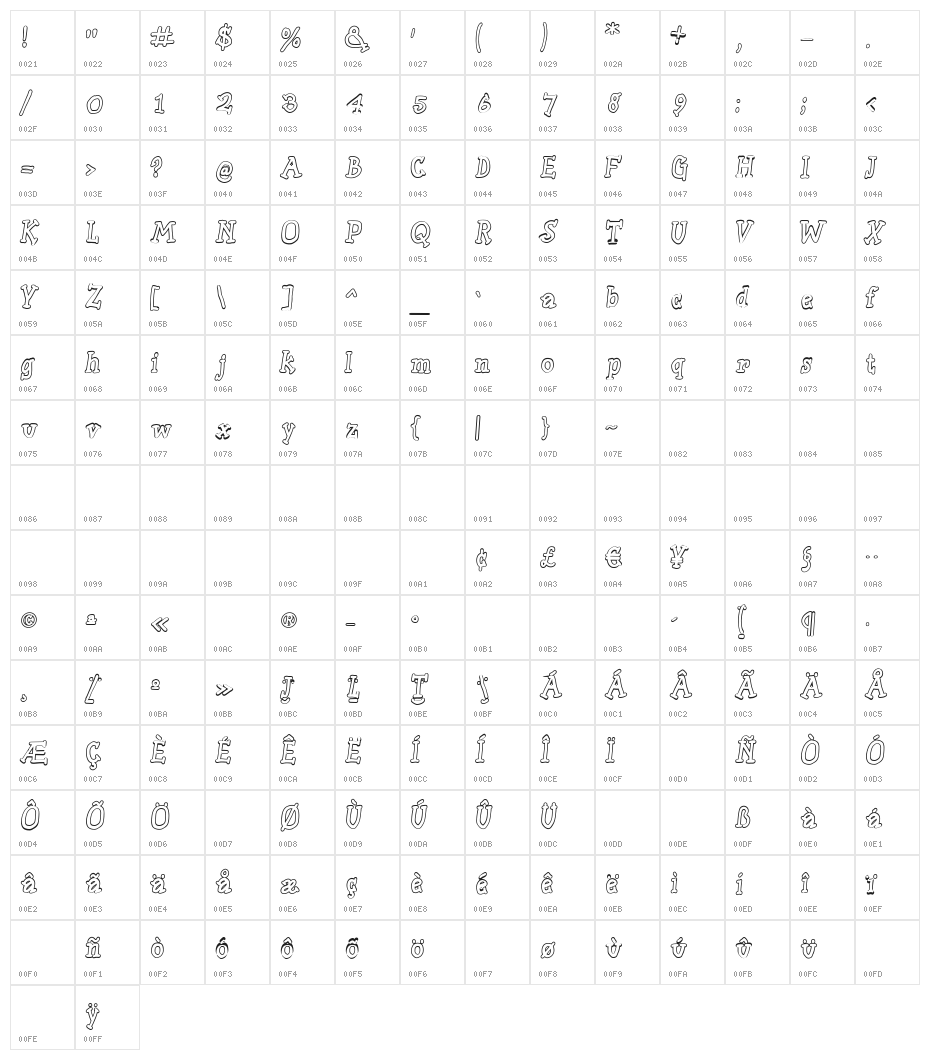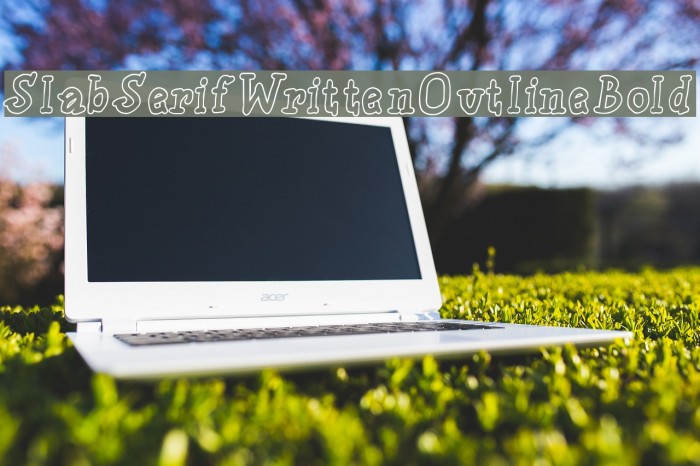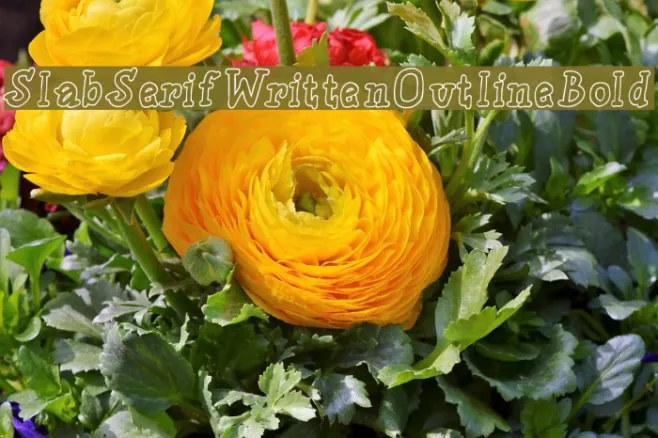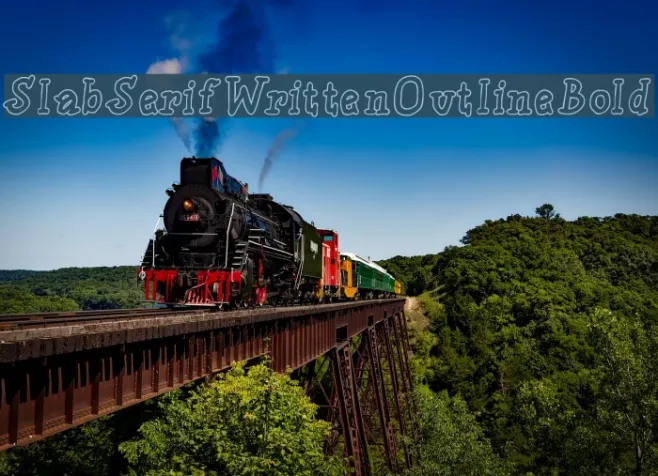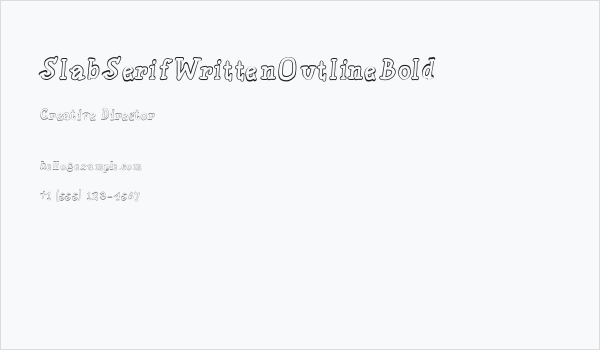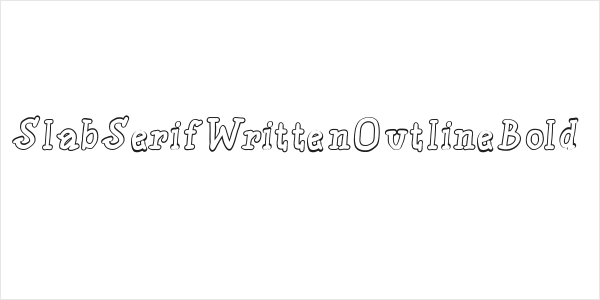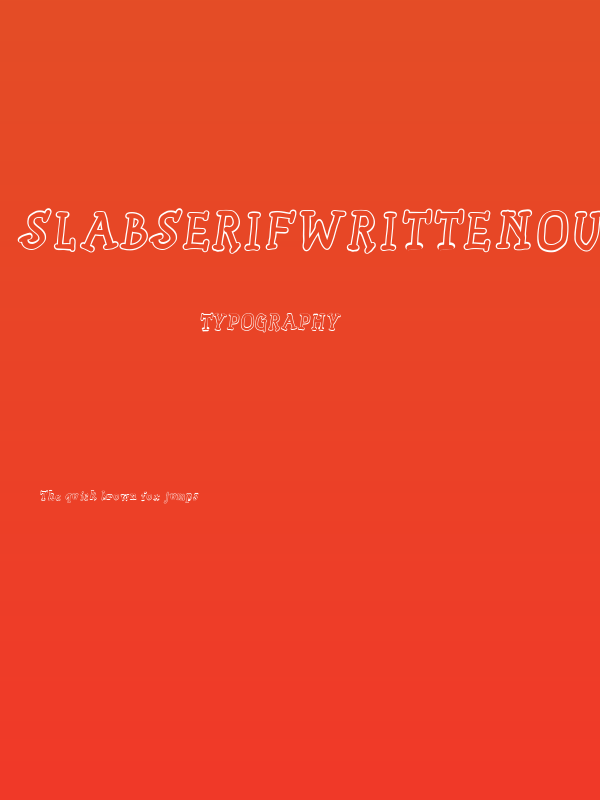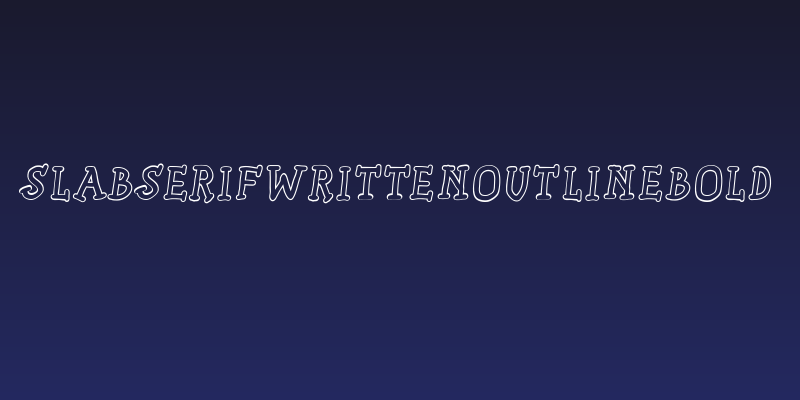
SlabSerifWrittenOutlineBold Font
SlabSerifWrittenOutlineBold Description
This font features a bold, outlined style with a playful and handwritten appearance. Each character is defined by a thick outer line, giving it a distinct and eye-catching look. The letters have a slight slant, adding to the casual and informal feel. The uppercase and lowercase characters maintain a consistent design, with rounded edges and a whimsical flair. Numbers and special characters follow the same outlined pattern, ensuring uniformity across all glyphs. This font is ideal for projects that require a fun and engaging aesthetic.
| Overall Style | Playful, Casual, Decorative |
| Proposed Projects | Ideal for children's books, playful branding, posters, and creative invitations. |